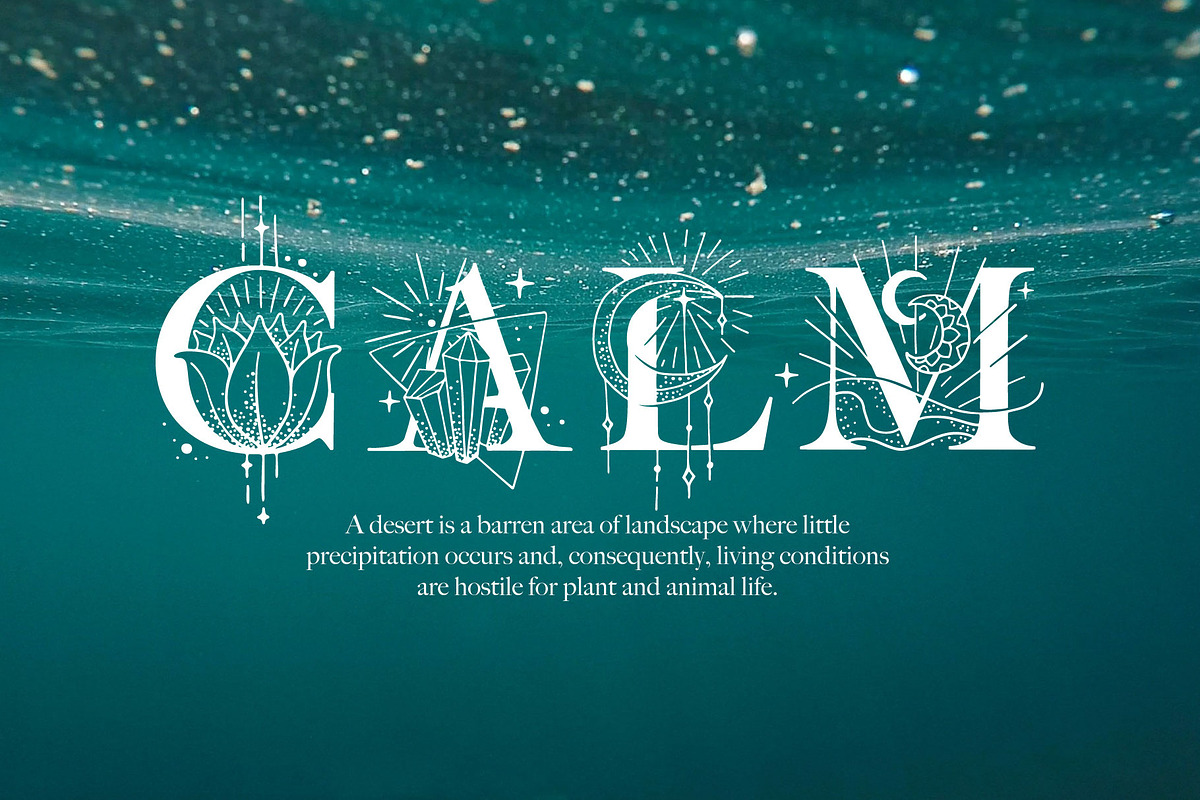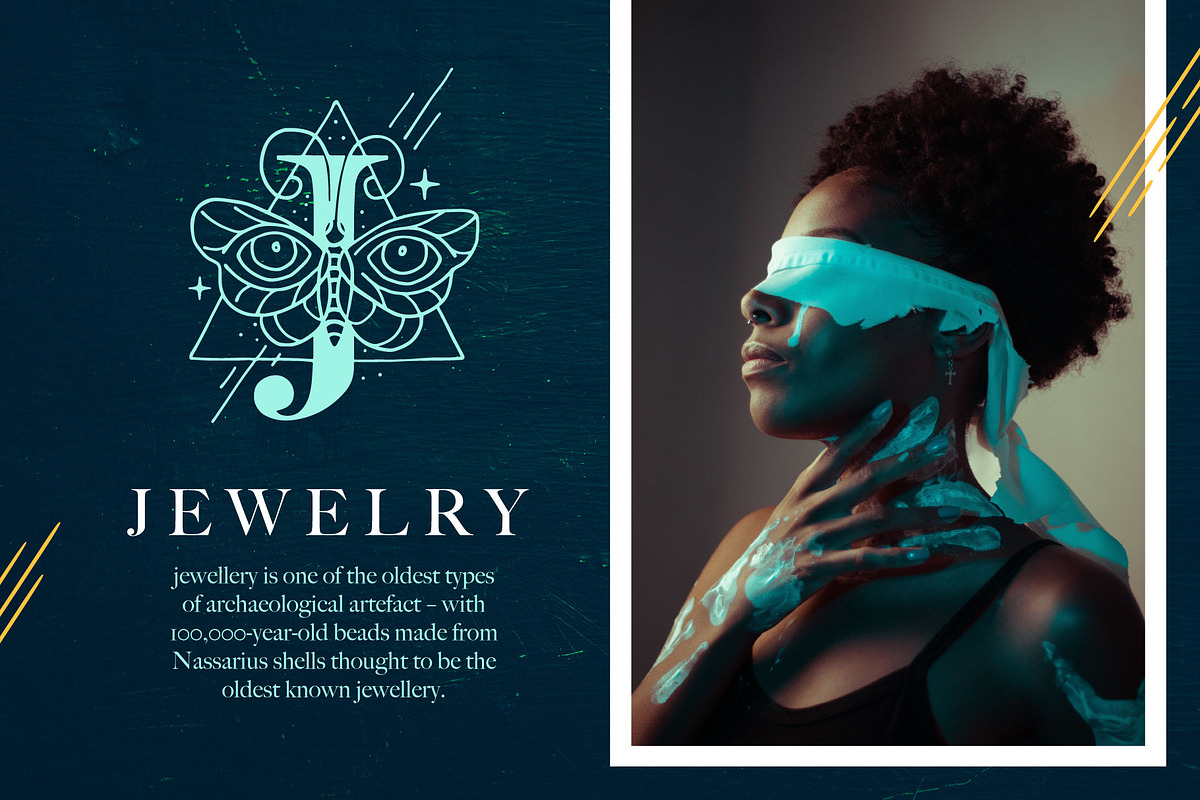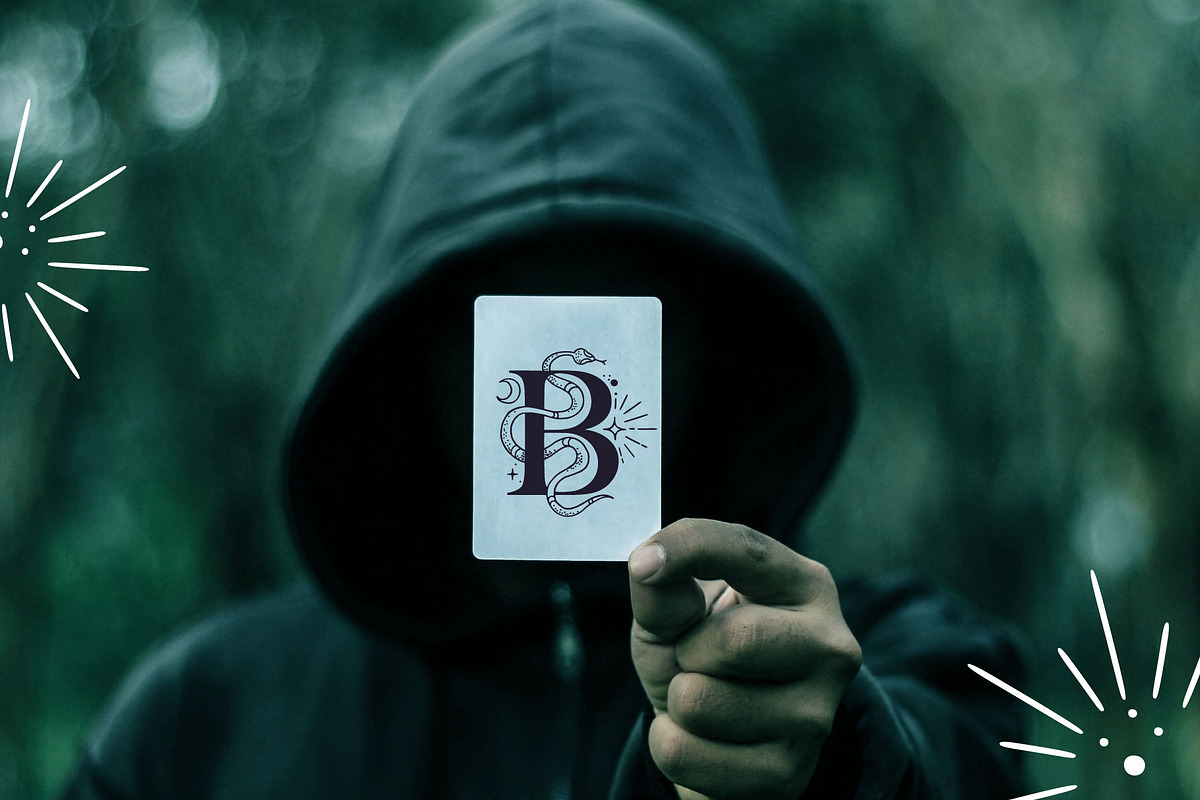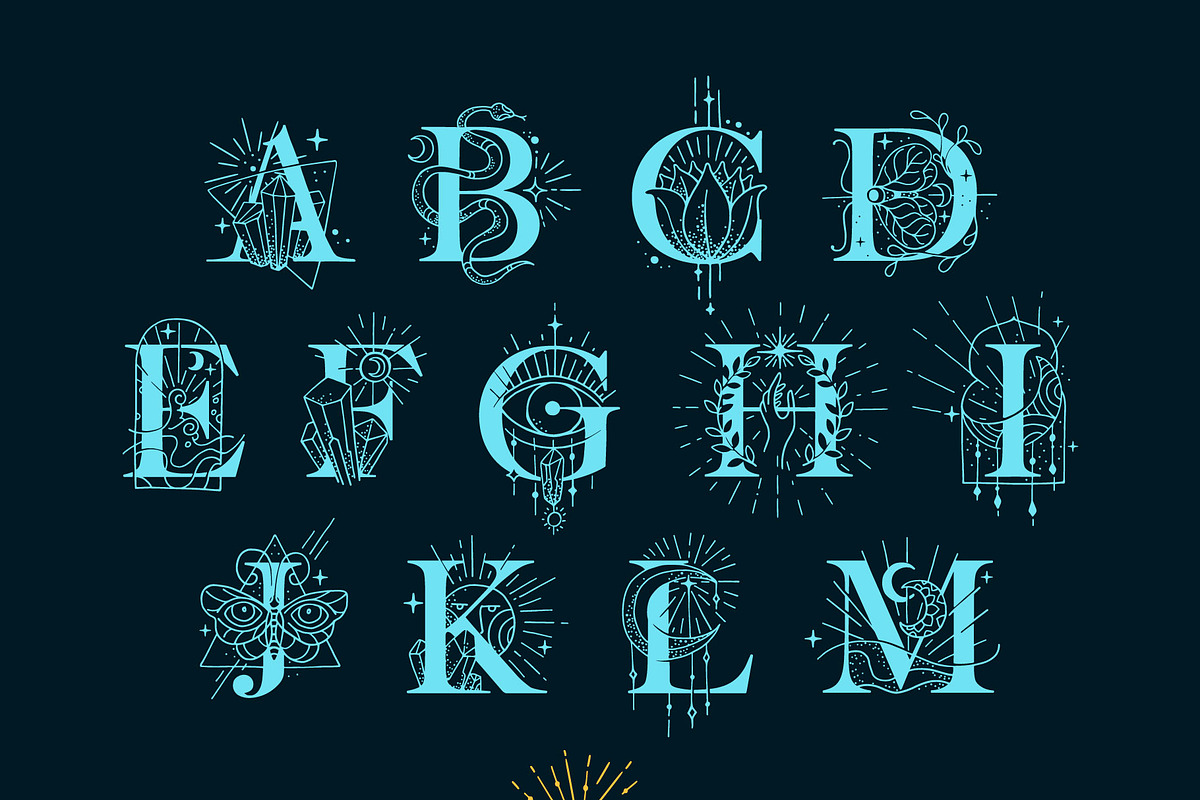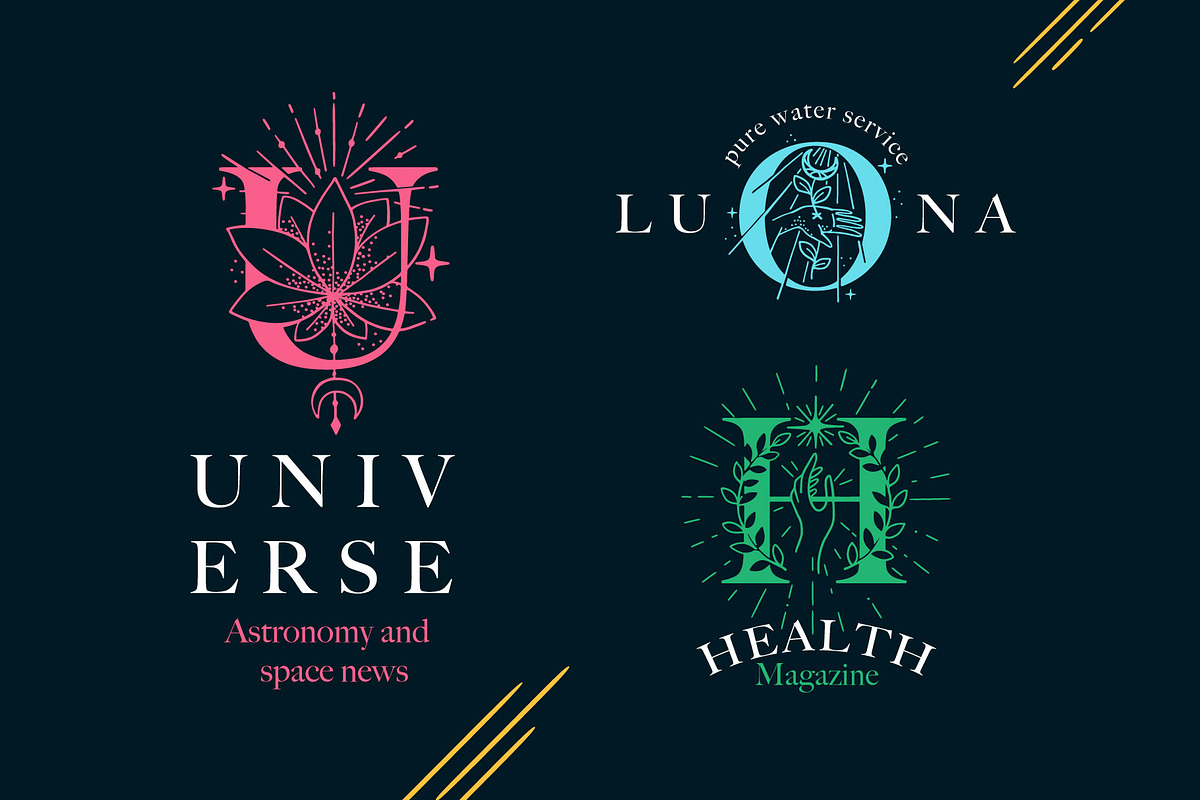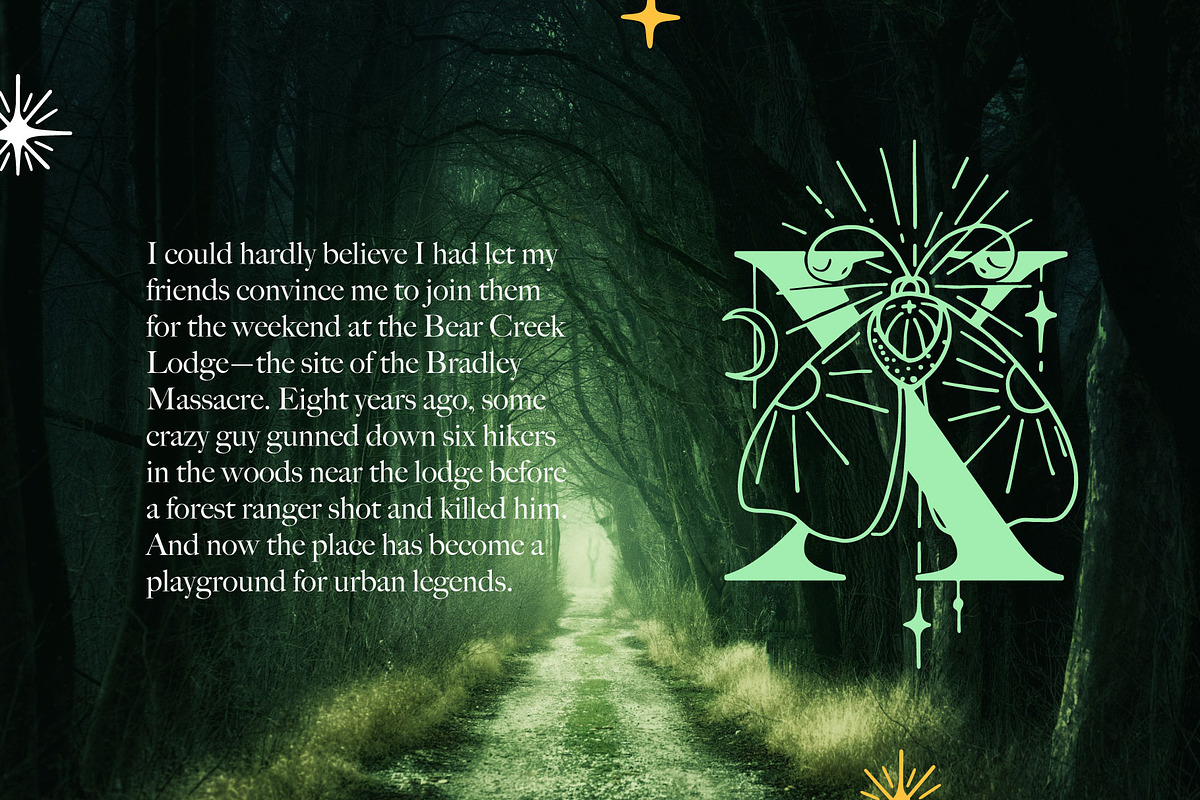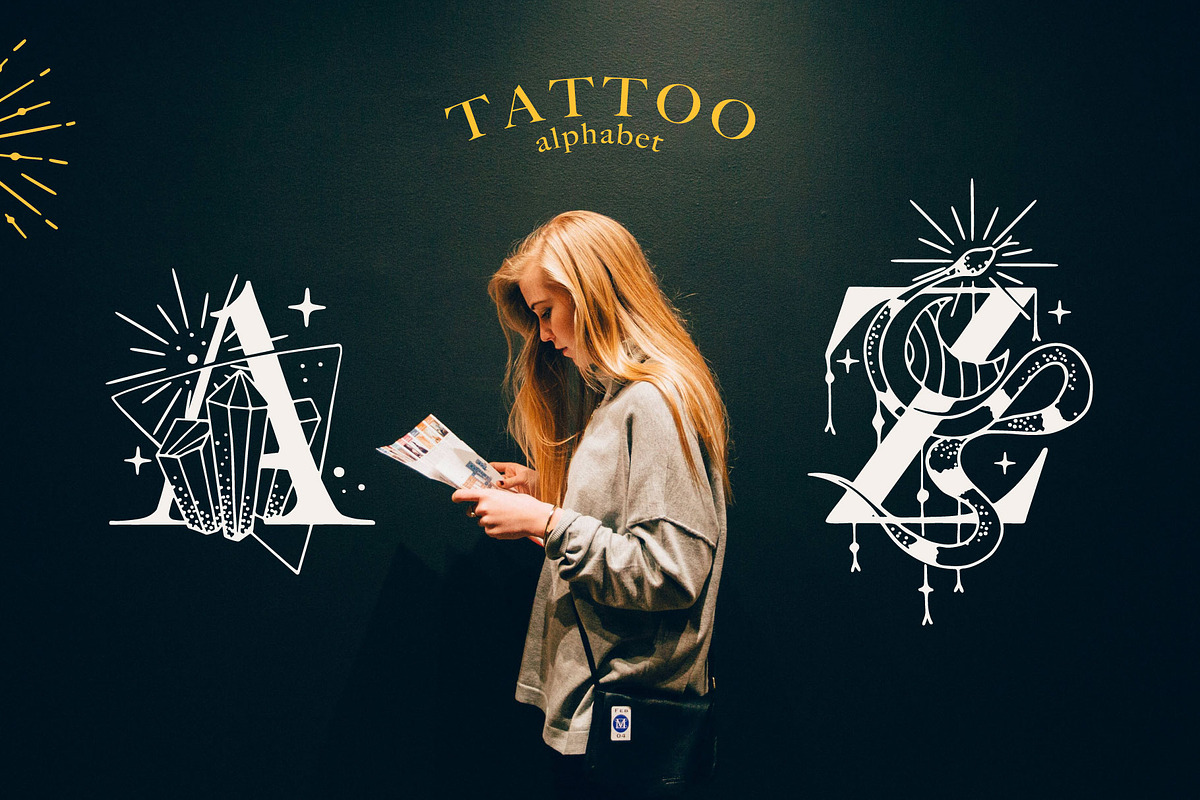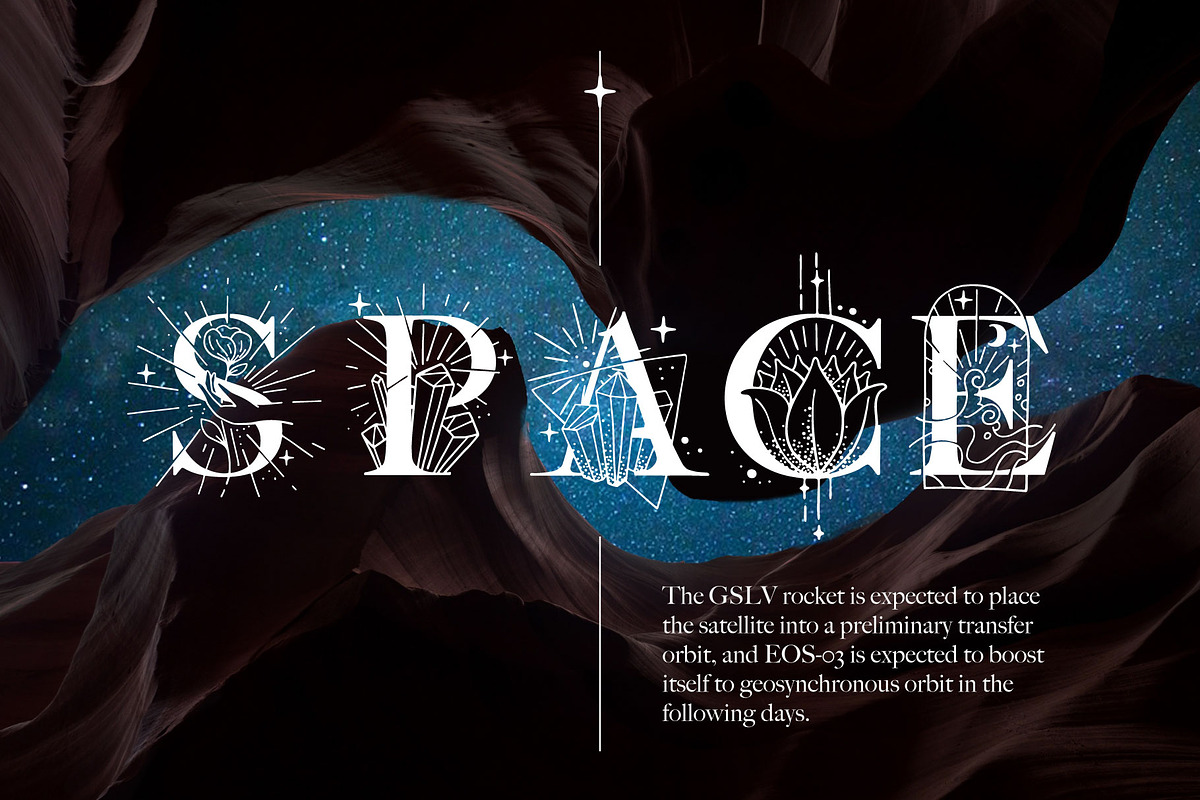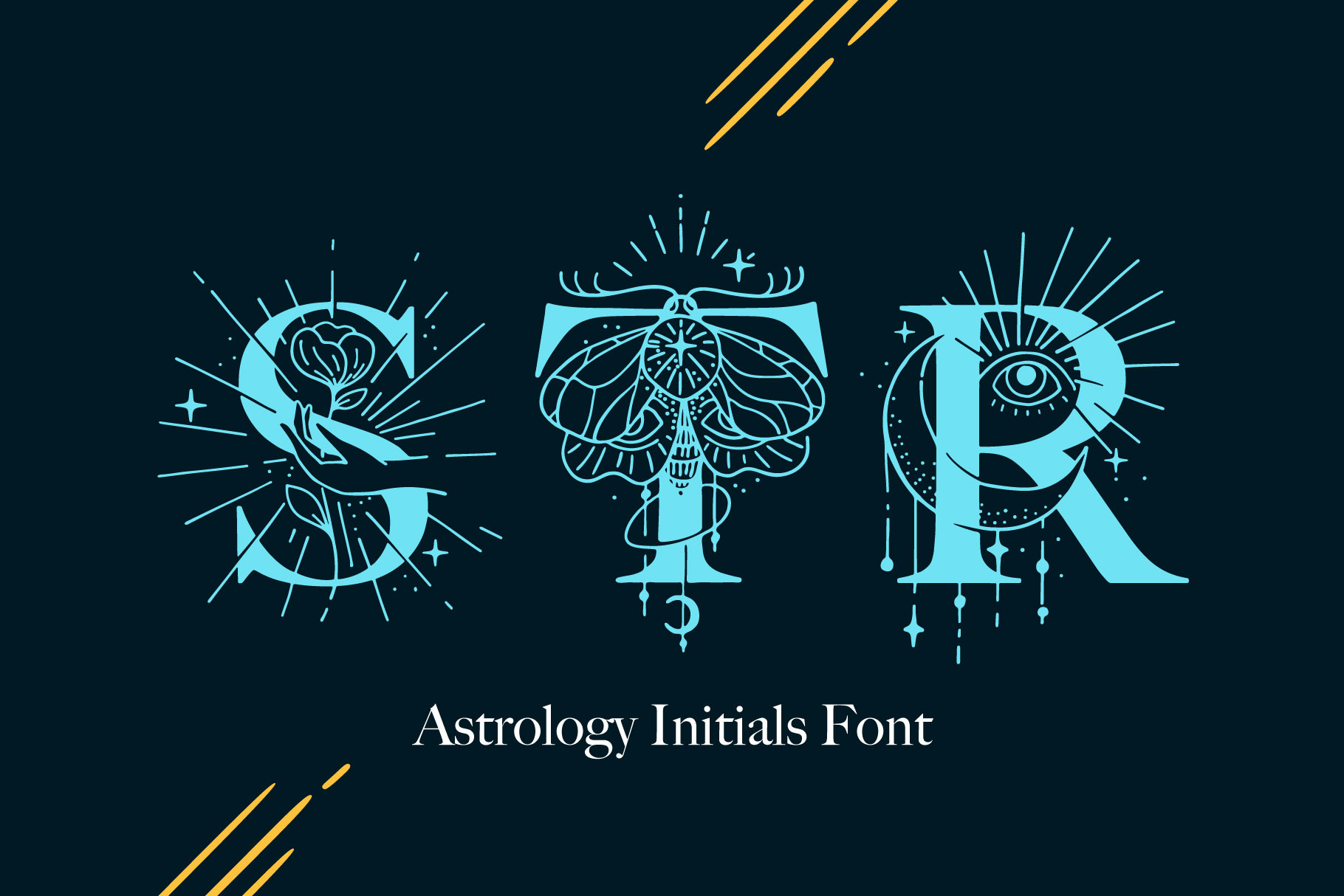
Astrology Initials Font
Do you need to design a new Mystical logo or Astrological posters? Need some vintage-style headline? Want to create Tarot cards? Astrology Initials is a new serif font for those purposes. Each monogram is hand-drawn with space and spirits elements. Just take a try!